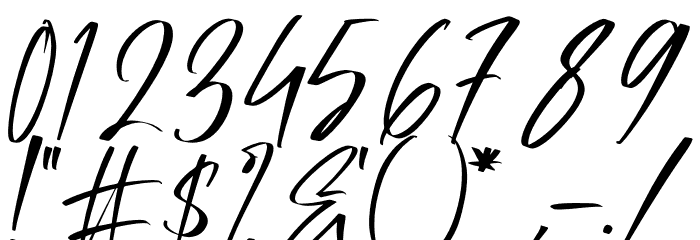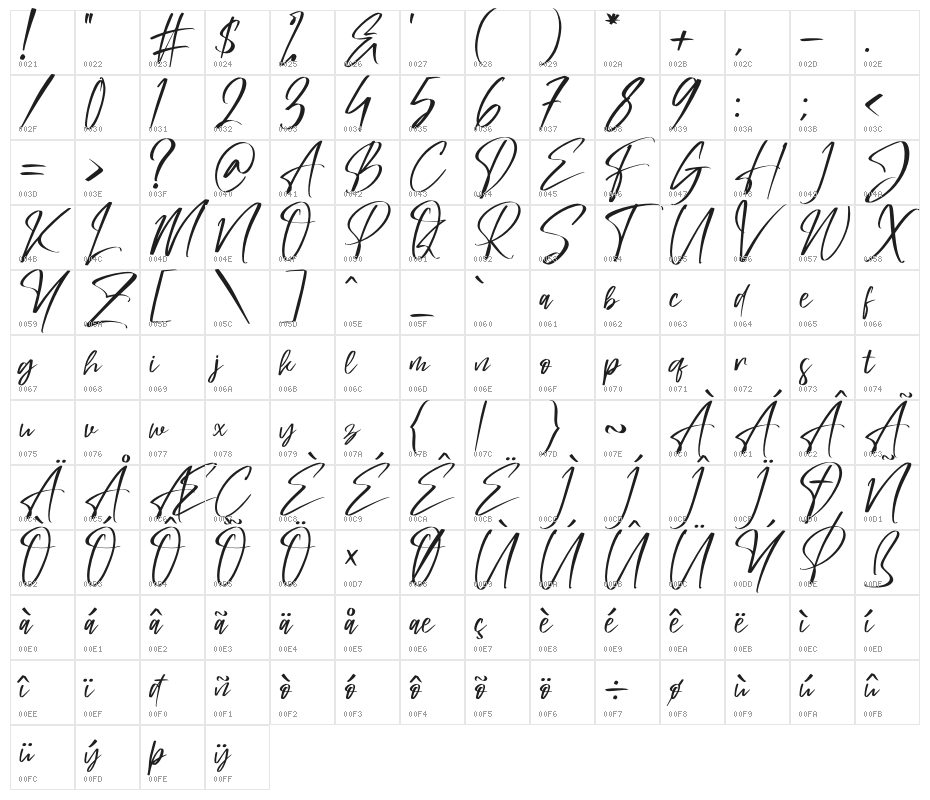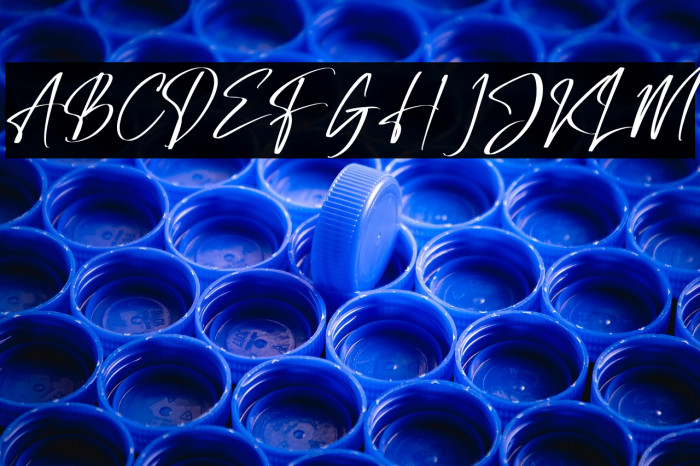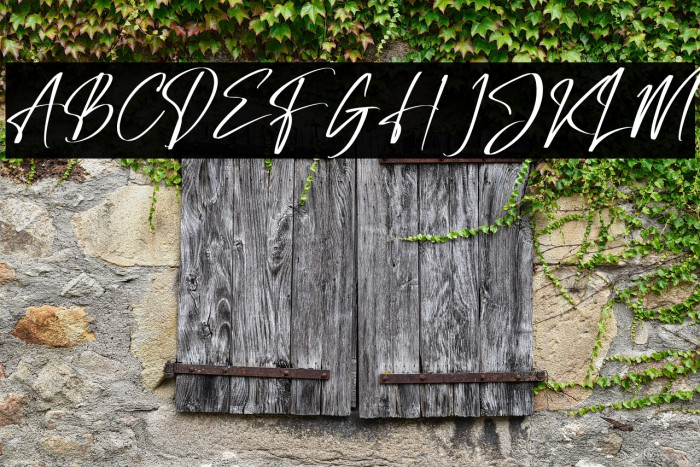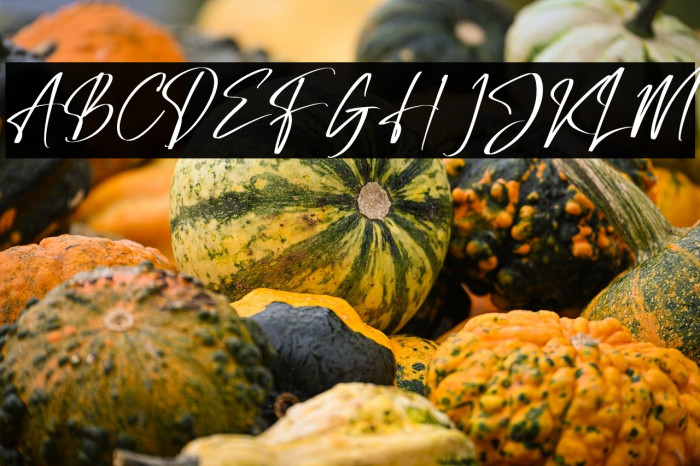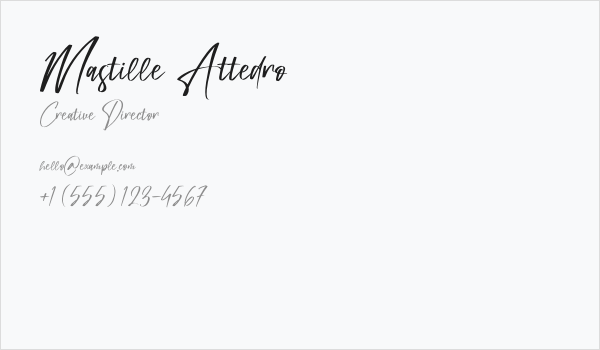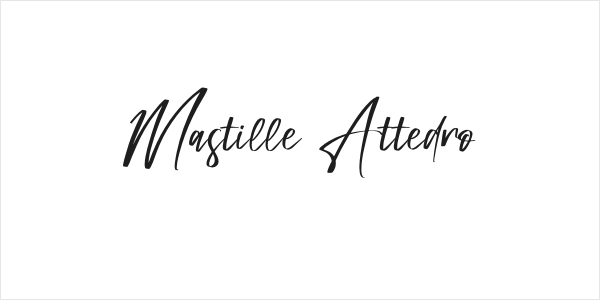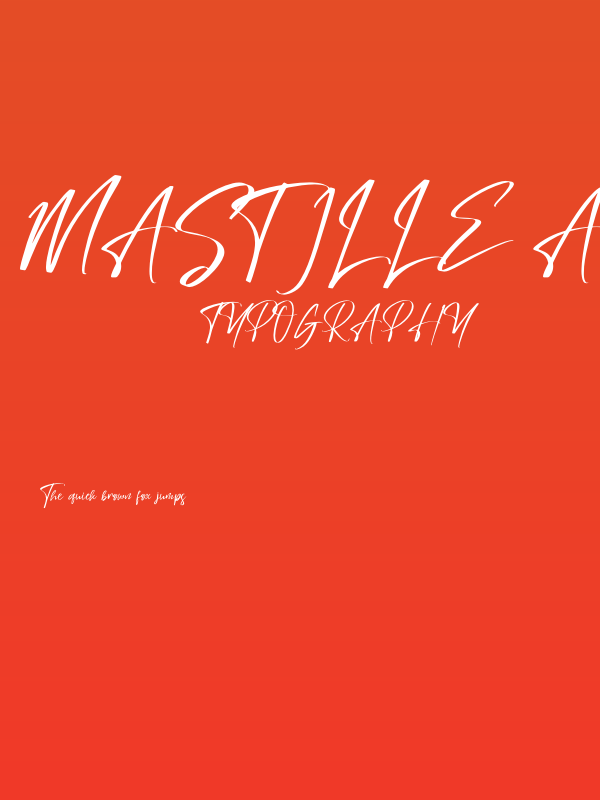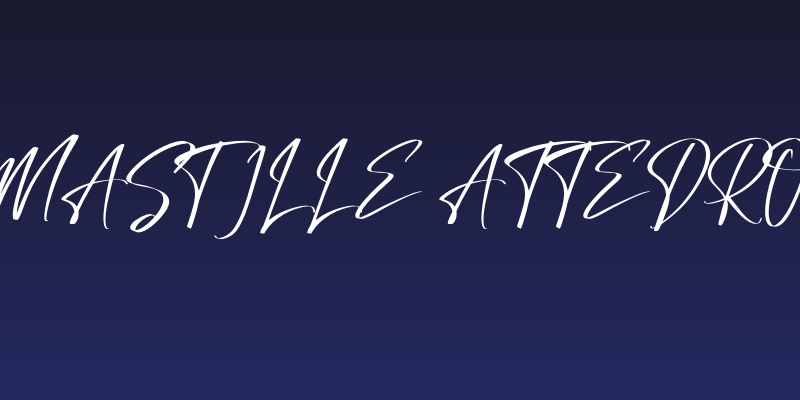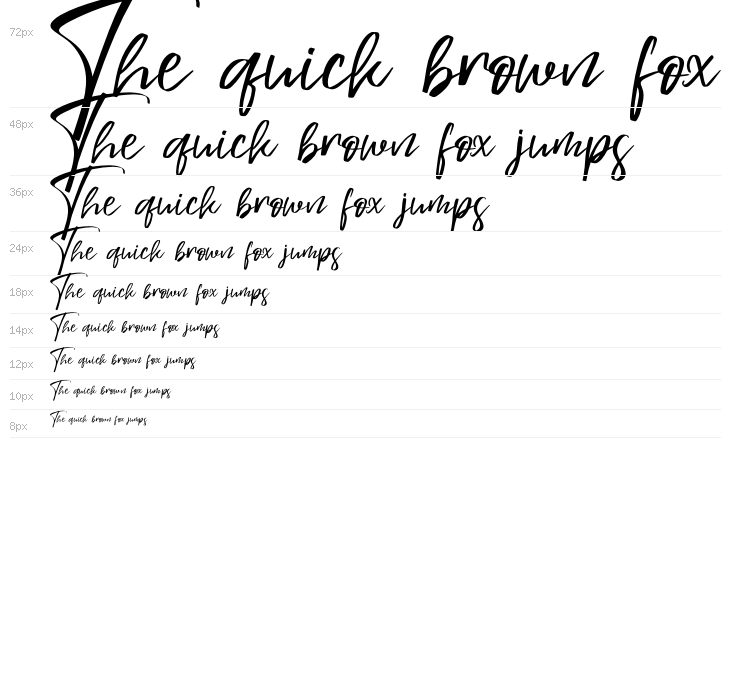
Mastille Attedro Font
Mastille Attedro Description
This font exudes a dynamic and expressive style, characterized by its fluid, handwritten appearance. The letters are crafted with a sense of movement and spontaneity, featuring varying stroke widths that add a lively and artistic flair. The uppercase and lowercase letters maintain a consistent flow, while the numerals and special characters complement the overall aesthetic. The strokes are slightly slanted, enhancing the casual and informal feel. This font is perfect for projects that require a personal touch, such as invitations, greeting cards, or branding materials that aim to convey creativity and individuality.
| Proposed Projects | Ideal for invitations, greeting cards, branding, and creative projects. |